1. What Is a Commercial Font License Cost & Why It Matters
When you purchase or download a font, you are not simply acquiring artistic assets — you are entering a legal agreement via a license. A Commercial Font License Cost grants you the right to use the font in commercial contexts (e.g., branding, packaging, clients, products for sale). If you use a font without the proper license (or incorrectly interpret the licensing terms), you risk legal issues, extra costs, or forced replacement of typography in your work.
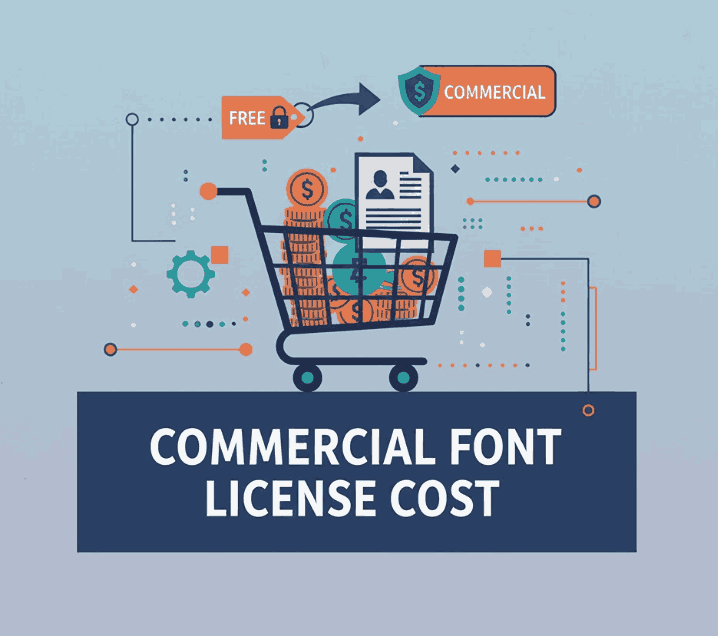
2. Common Types of Commercial Font License Cost
Here are the most frequent licence types encountered in commercial font usage:
Desktop / Install-License
This licence covers installing the font on a number of computers or devices to create static artwork (logos, print layouts, packaging). As per one guide: “the desktop licence price depends on the number of computers where the font is installed.”
Web Font / Embedding Licence
If you embed the font via @font-face on a website, you’ll typically purchase a web licence. The cost often depends on page-views or domains.
App / Mobile Licence
For use of a font within mobile or desktop applications — each app may require its own licence or a tiered licence based on downloads/users.
eBook / Publishing / Broadcasting Licence
For embedding a font in eBooks, printed books, magazines, video subtitles, broadcast material or digital-ads, specific licences apply. For example: “digital adverts licence is priced based on ad impressions; broadcasting licence on number of videos.”
Unlimited / Enterprise / Custom Licence
Large brands or corporations often need a licence covering unlimited usage (many users/devices, global rights, multiple media). These are higher cost but limit tracking and expand rights.
3. How Much Do Commercial Font License Cost?
Licensing cost depends on many variables: license type, number of devices/users, page-views (web fonts), app downloads, usage scope (broadcast vs static), exclusivity, and foundry pricing. Here’s a breakdown of typical cost drivers:
- Number of users/devices (desktop license) — more installations = higher cost.
- Page-views or traffic thresholds (web fonts) — some licences tiered (10,000, 100,000, 1 M views).
- Media type & distribution format — embedding in apps, eBooks, broadcast adds cost.
- Exclusivity or unlimited usage — large brands may pay tens of thousands for full rights. For example, an unlimited licence might “cost around $10,000” and an exclusive licence “starts at $30,000”.
While small licences may cost from a few tens to hundreds of dollars (depending on foundry and usage), commercial licensing should be viewed as an investment in your brand assets.
4. Example Fonts from Edric Studio and Their Commercial Font License Cost Implications
- Always Find Font — A strong display typeface. If used for a brand logo used across web + print + packaging, you might need a desktop license + web licence, depending on media.
- Blacked Font — Bold and impactful. For large-scale usage (billboards, signage, unlimited devices) you might consider a higher-tier or unlimited licence.
- Seaways Font — Perhaps versatile across web and print. If embedded in a website, the web licence metrics must be considered.
- Bob Gerry Font — If used within an app or for packaging for physical sale, you may require app or product resale rights in the licence.
By coupling your font-pages to licensing context, you both educate and promote your library to prospective buyers.
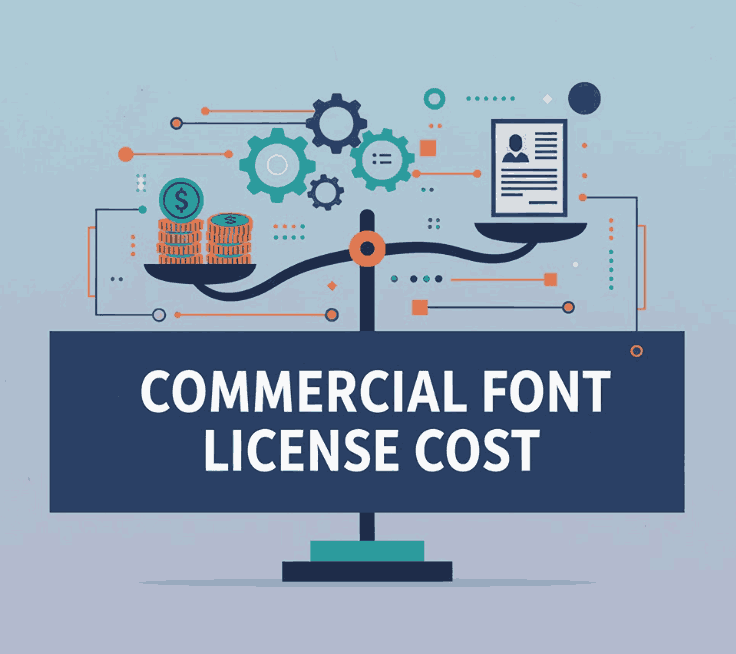
5. Key Considerations Before You Buy a Commercial Font License Cost
When purchasing or offering commercial font licences, keep these points in mind:
- Read the end-user licence agreement (EULA). Every foundry has different terms regarding embedding, redistribution, client-use, modification. Ignoring this can lead to non-compliance.
- Define your usage up front. Are you using the font for web only? Print only? Apps? Unlimited internal use? Knowing this helps select the correct licence.
- Think ahead to expansion. If your brand grows into apps, multiple websites, global usage, you may need higher tier licences.
- Budget for licensing. Many designers under-estimate font costs; build it into client budgets or brand asset plans.
In short: treat your font licence as part of your brand infrastructure — choose with purpose, budget accordingly and scale responsibly.